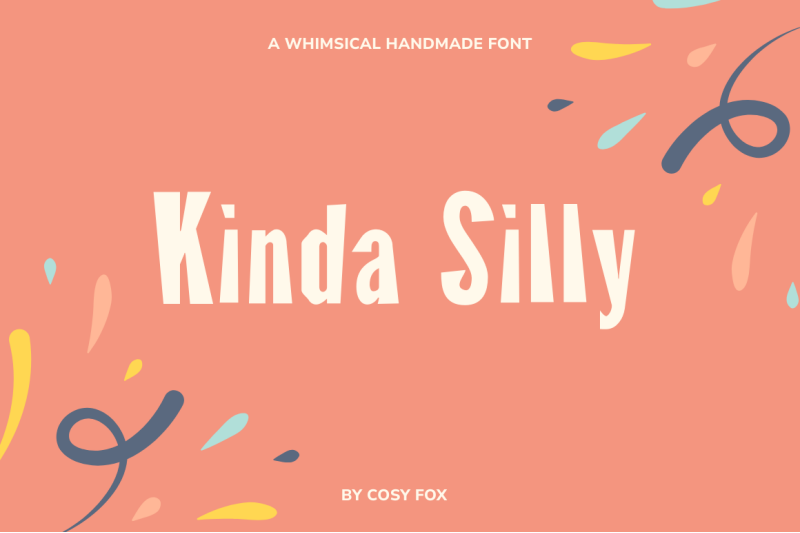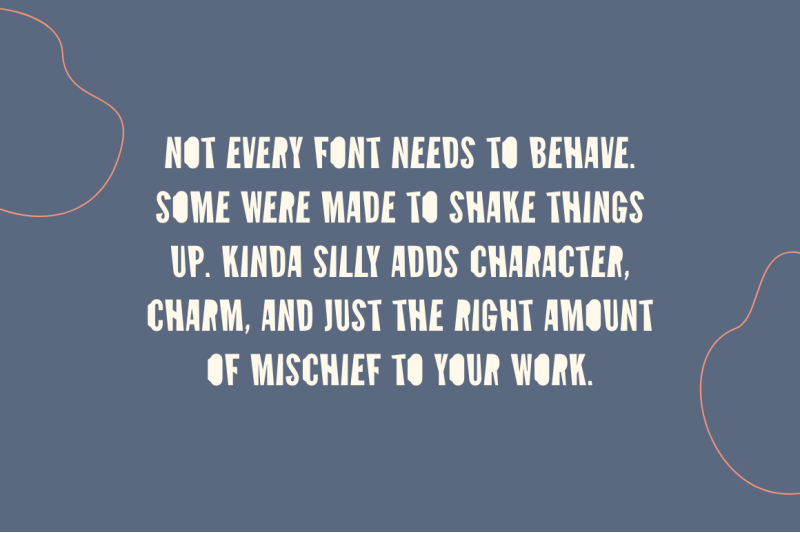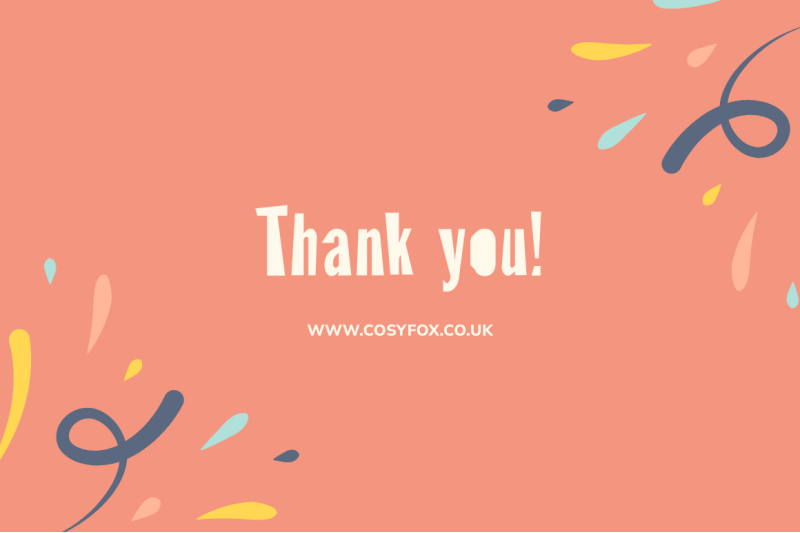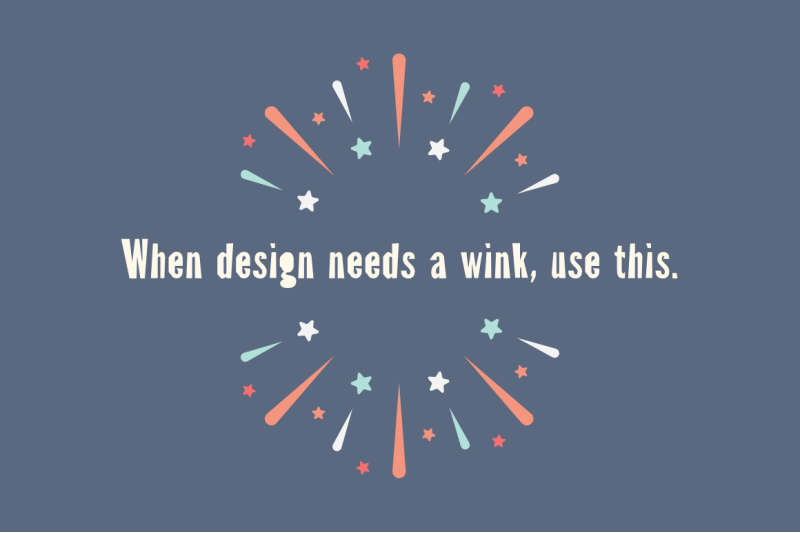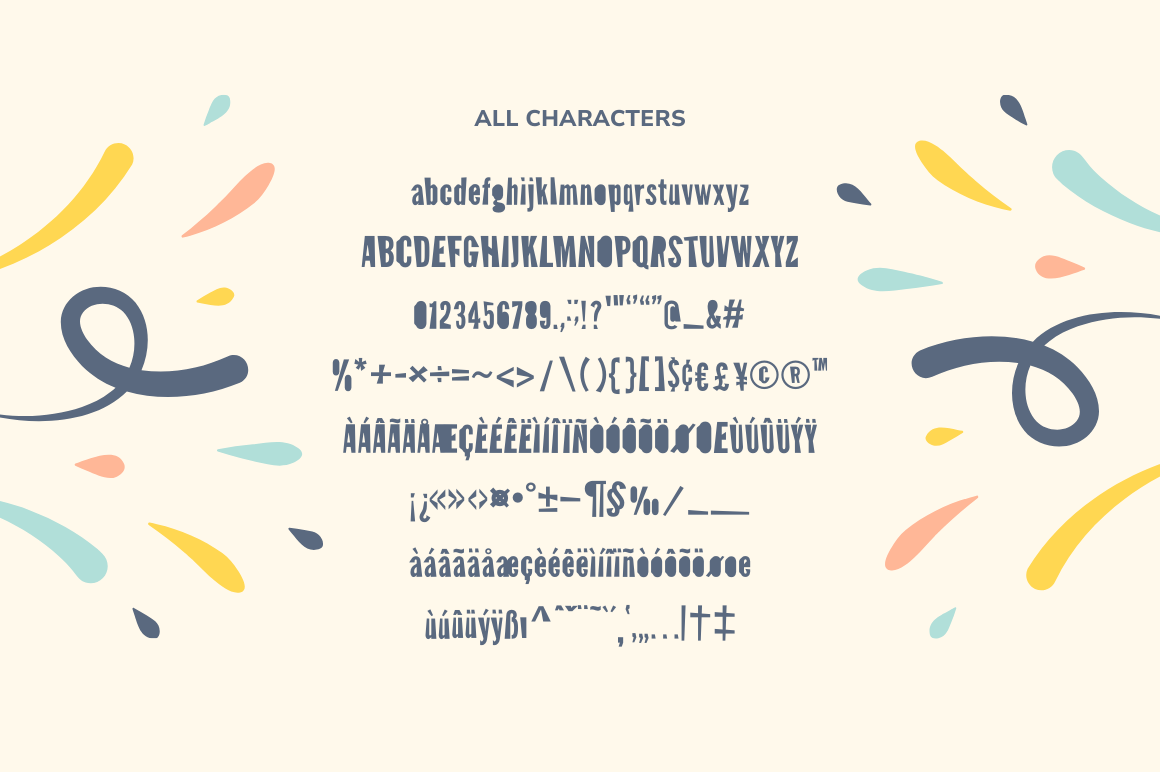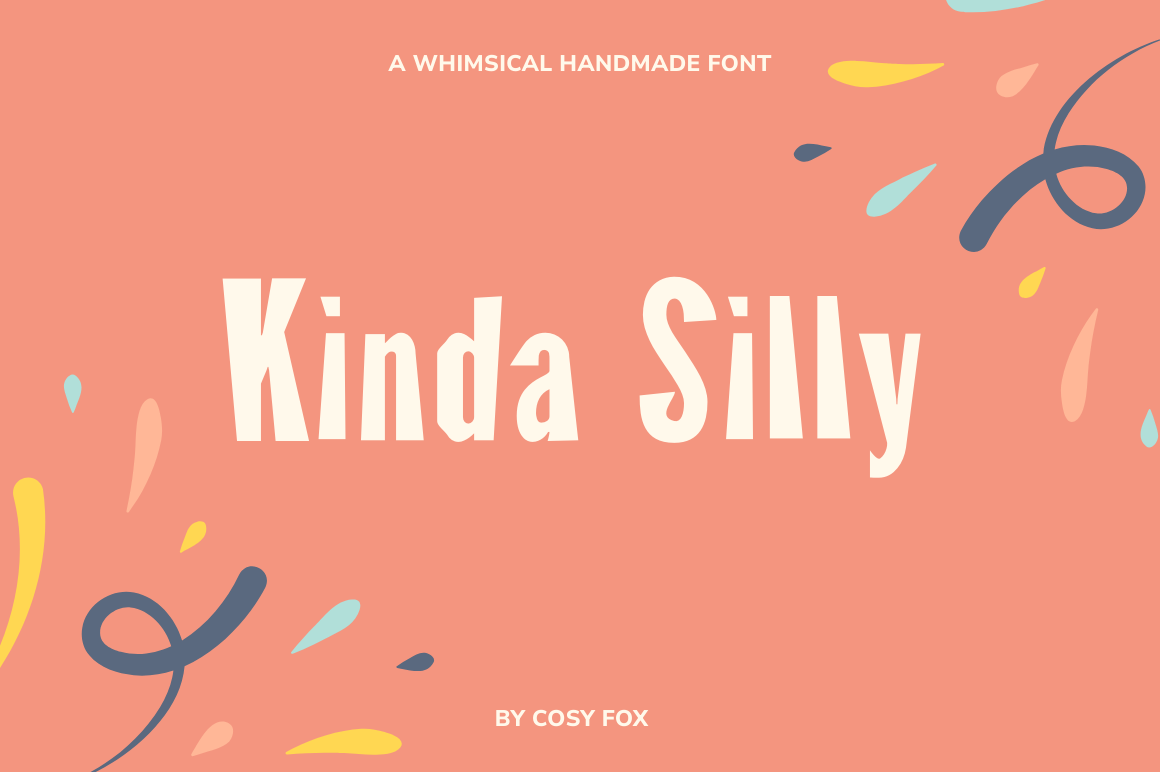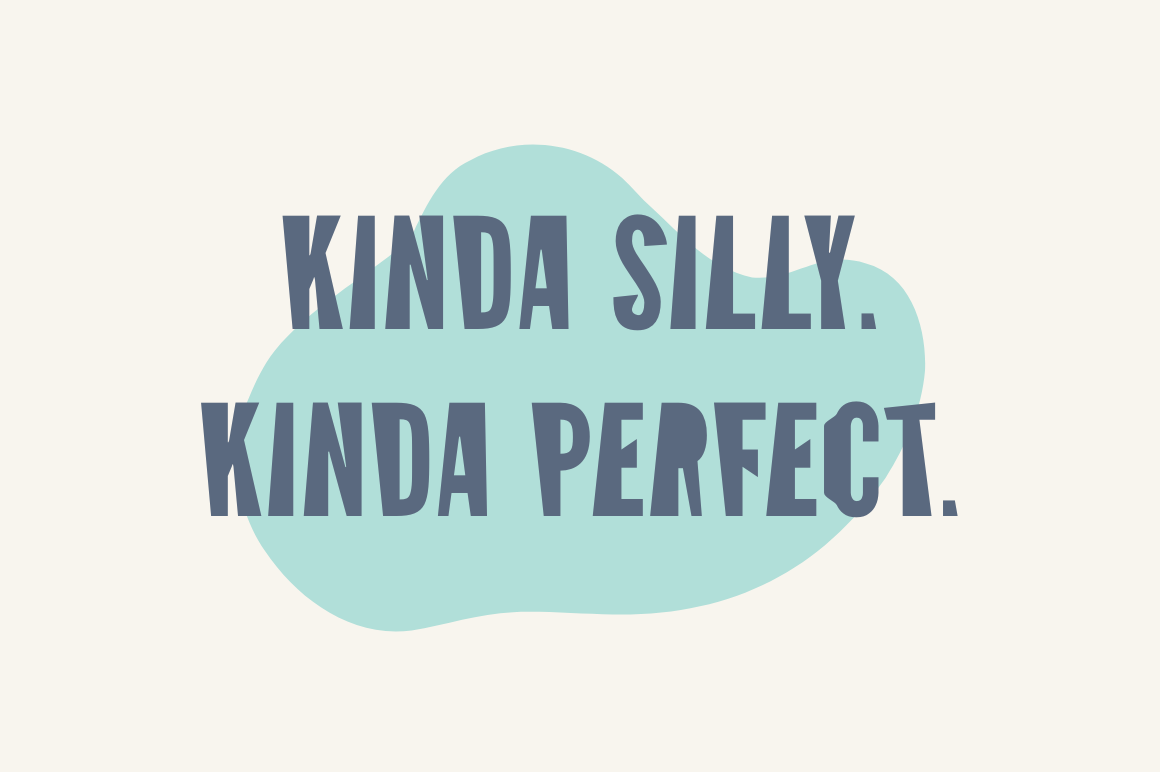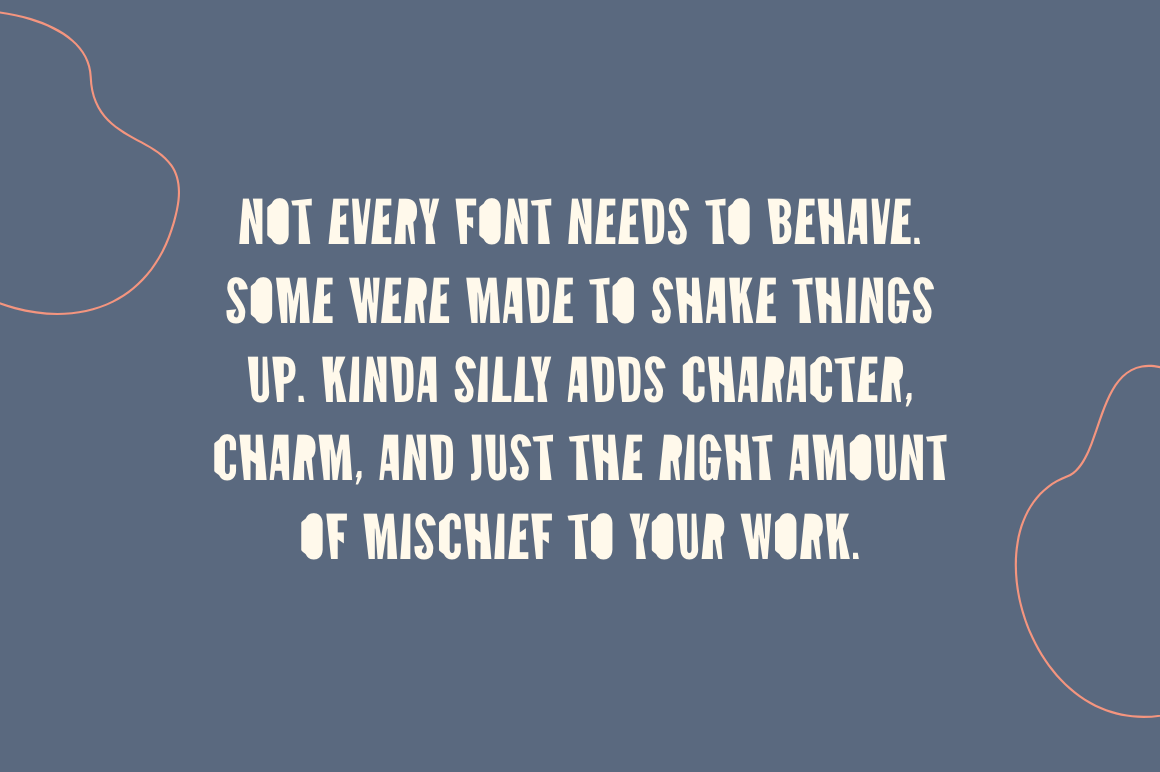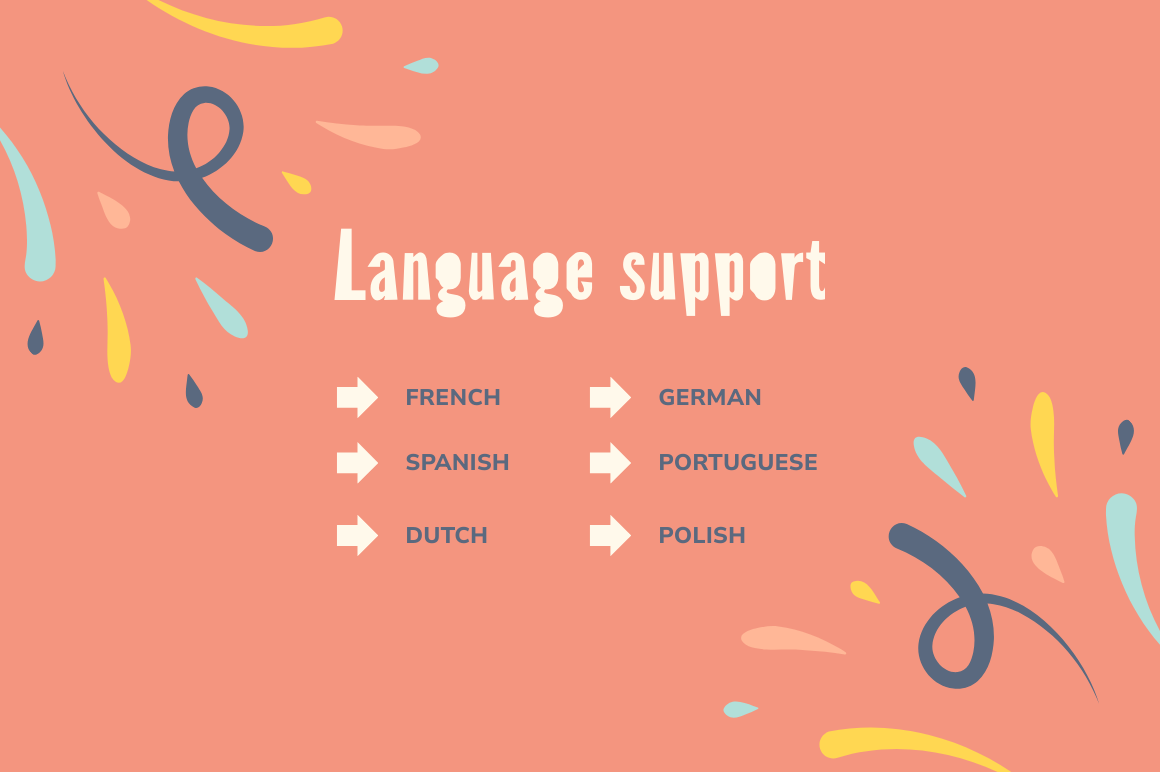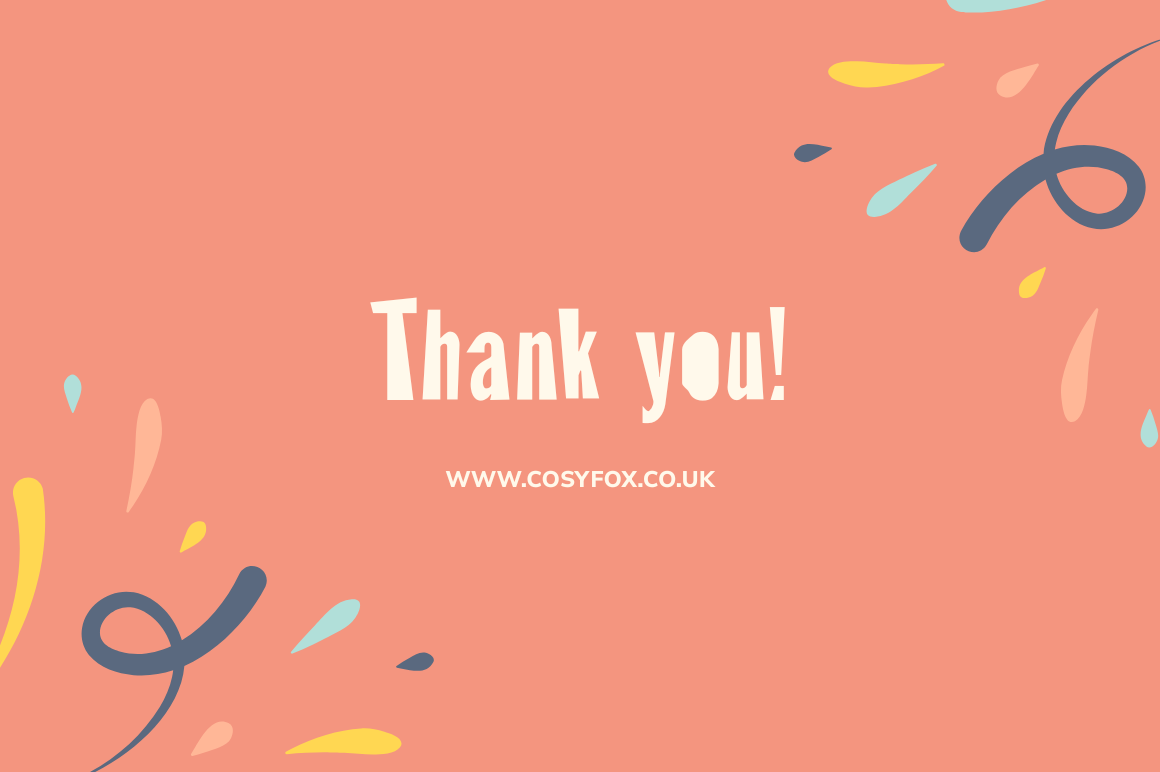
Kinda Silly Fun Font
Kinda Silly is a bold, playful font with a modern twist and just enough mischief to make your designs pop. It’s got attitude in all the right ways: chunky shapes, unexpected curves, and a hand-drawn feel that doesn’t take itself too seriously. Perfect for bold branding, fun packaging, colourful quote graphics and anything that needs a little personality injection. This all-caps font is ready to bring the party to your next Canva or Procreate project, and trust us, it plays well with colour. Language Support: French, German, Spanish, Italian and Portuguese. What You Get: Kinda Silly .OTF font file, How to Install PDF. Thank You! www.cosyfox.co.uk